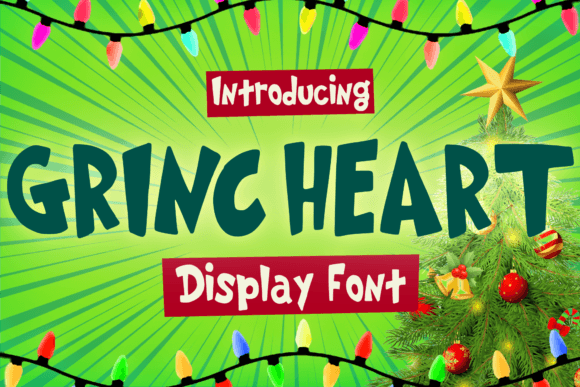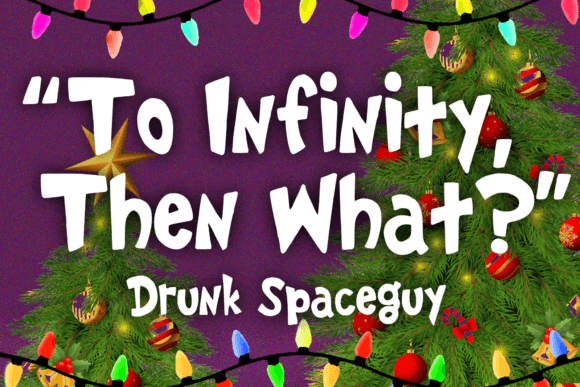
Grincheart Font
GrincHeart is a playful and perfect Christmas font. The font is awesome for creating cool designs that scream for attention. It’s ideal for anything ranging from t-shirts, book designs, poster, blog writing, greeting cards to stickers, or anything that needs a casual touch. Fall in love with its incredibly cool style, and use it to create lovely designs!